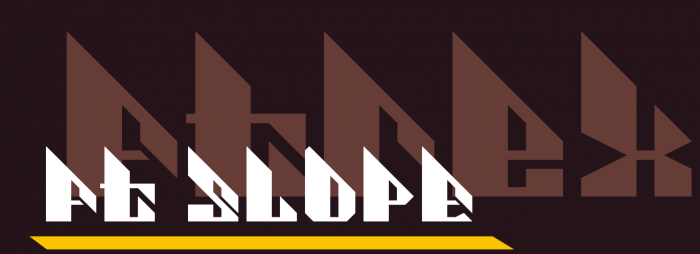
It's cool, almost looking like hurdles (or deadly elements in retro platformers)… :-)
Perhaps its counterpart would be based on a sinusoid (or a quite curvy rule)?
Should have done this in 2x2 Filter, but I won't change it.
The 2/Z/z are distinguishable in context (word, number, number in a text line).  You could try the 2 with a flat base triangle instead of that descending 'parallellogram', top left top corner, base starts where the top of your 'notch' joins the right digonal .
Thanks! I might change the Z aswell to make it less like the 2
5our 9 is backwards...
FT Slopeby FTrex